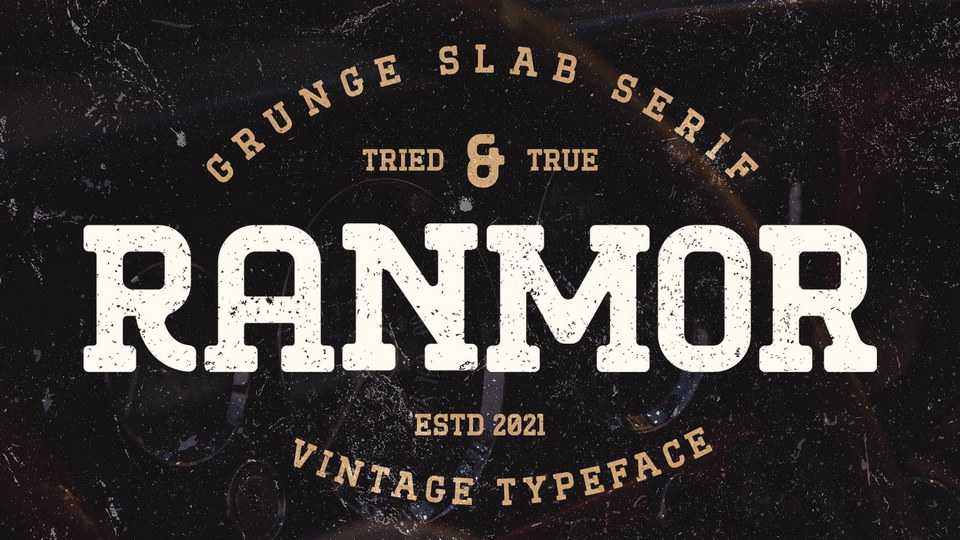
Download Ranmor font, a vintage slab serif typeface. Inspired by vintage logos and design, Ranmor gets the more strong typeface by adding the grunge feels, and inky effect on the letterforms.